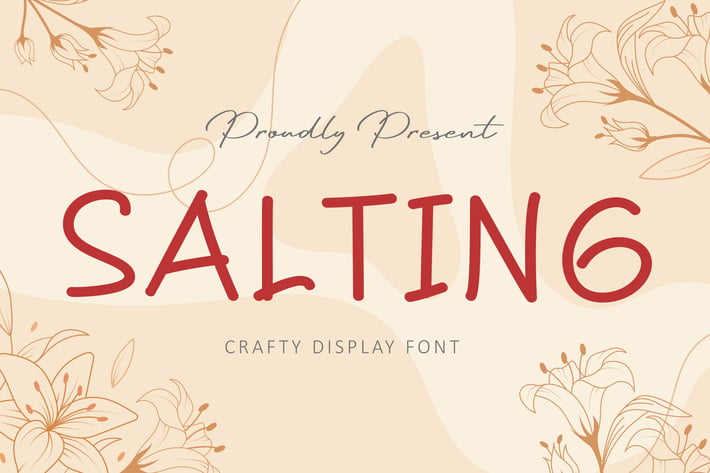
Salting Friendly Instagram Font
typecoconut
Salting is delicate and luxurious script font for social media, specially for instagram. Fall in love with this stylish font and use it to create gorgeous wedding invitations, beautiful stationary art, eye-catching social media posts, and much more!